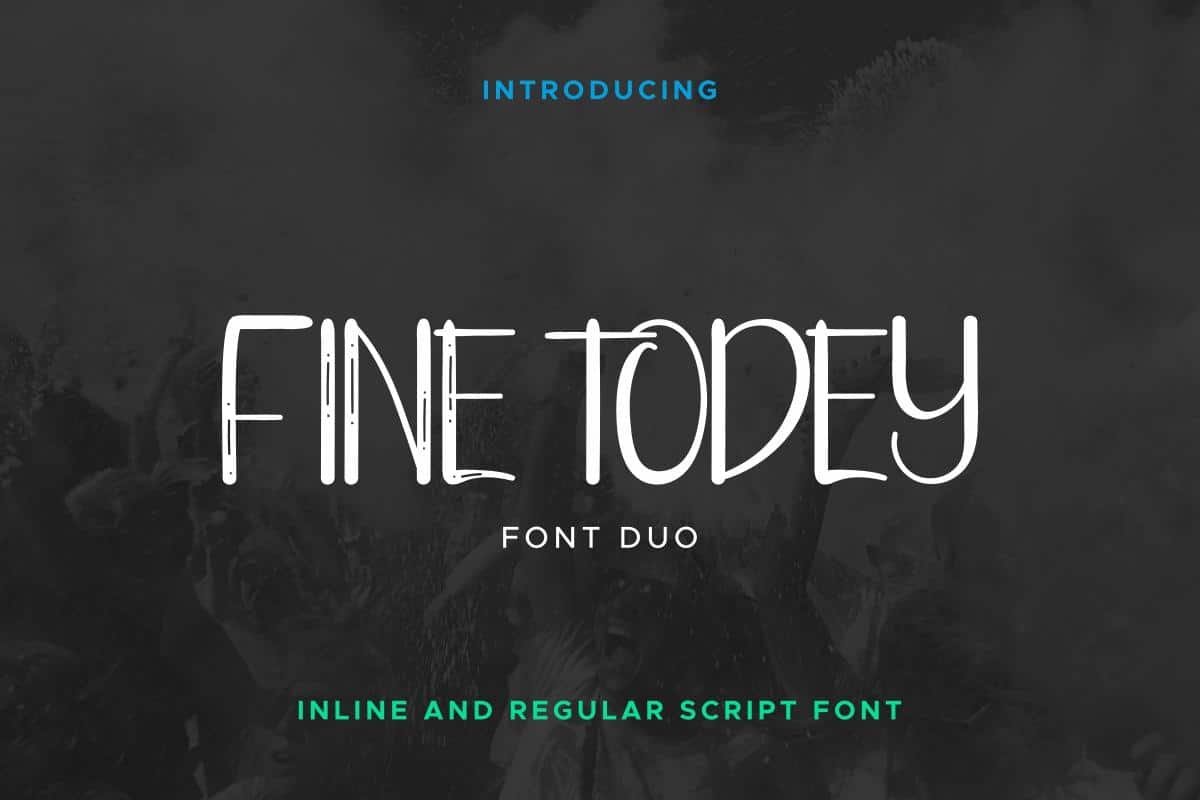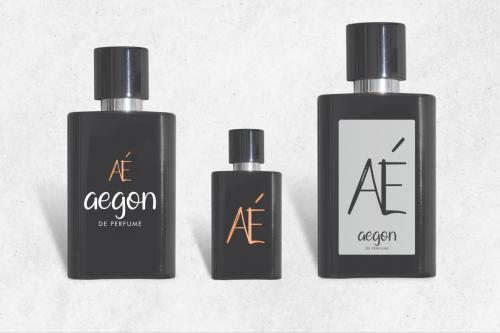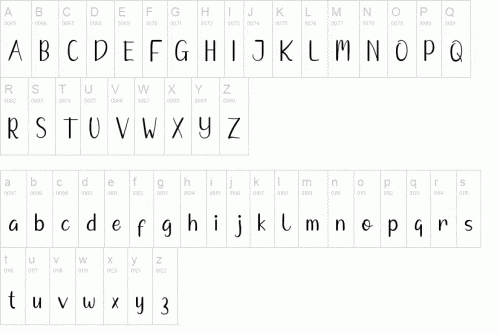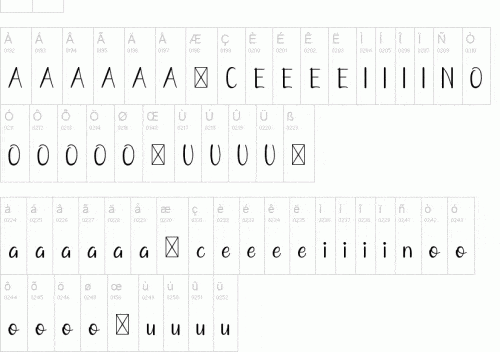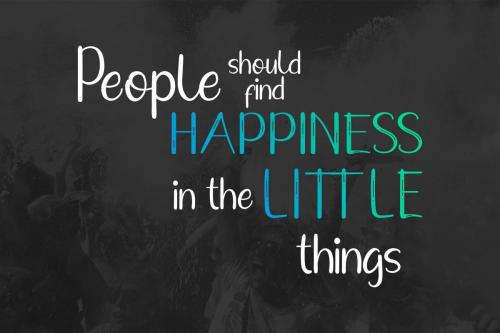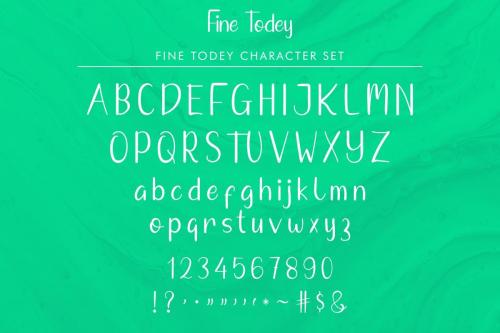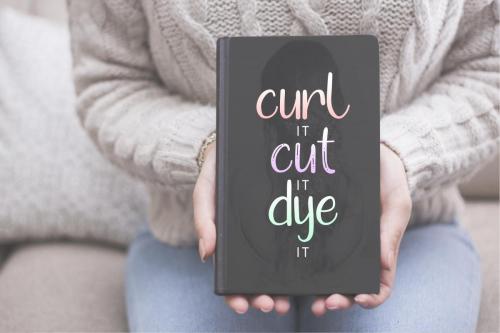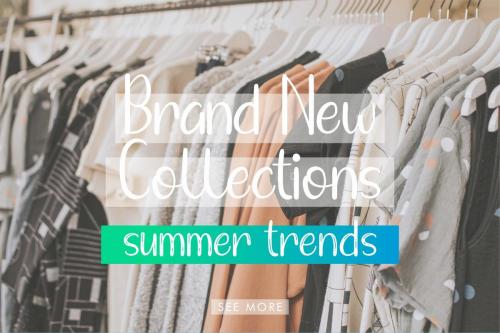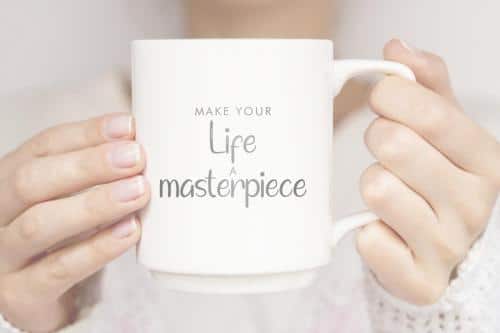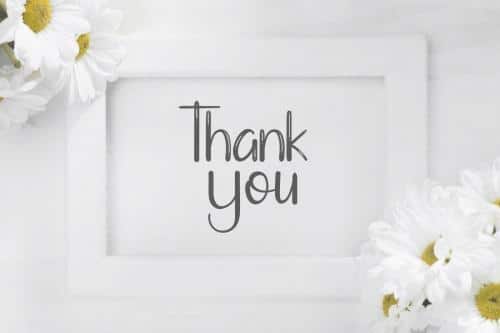
The Fine Todey font is a script font with a handwriting style that has two styles: regular and textured. This font will add a classic and stylish feel to logos, stationery, posters, business cards, and more.
- Designer: Edric Studio